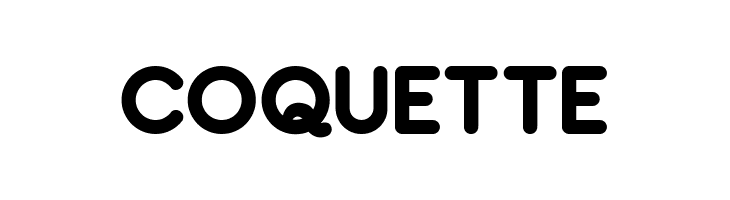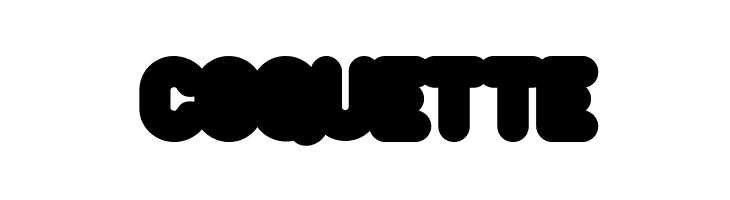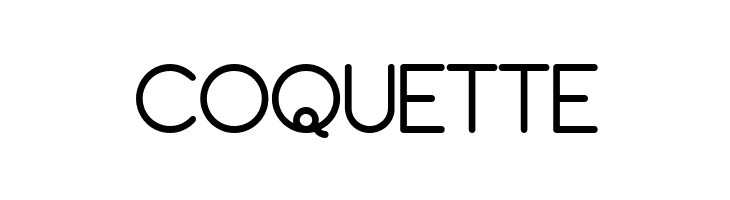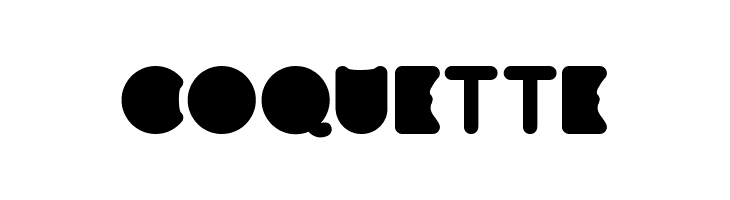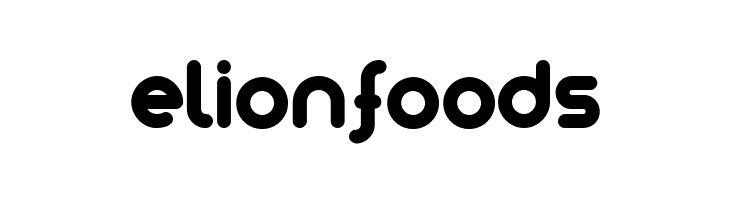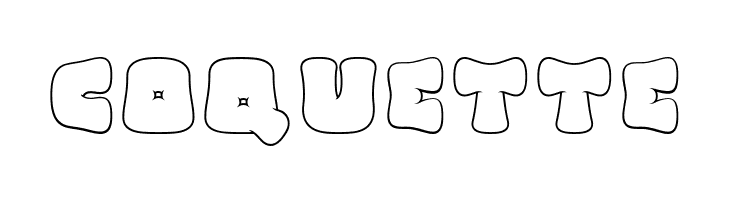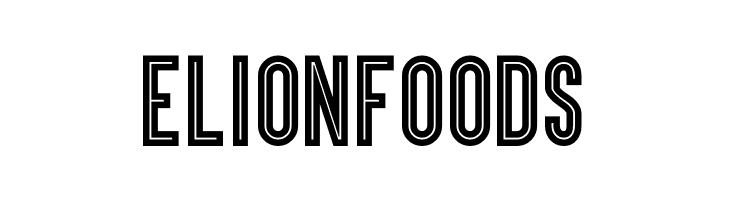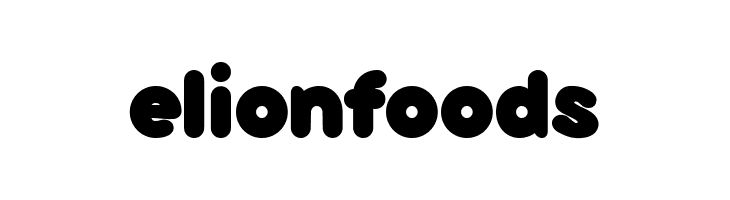
A bold, modern font with geometric outlines and clean lines.
A bold, modern font with geometric lines and strong presence.
A playful, rounded font with smooth curves and a friendly appearance.
A playful, rounded font with smooth curves and uniform strokes.
A bold, playful font with rounded edges and a geometric structure.
A modern, rounded font with geometric structure and even spacing.
A playful, rounded font with bold, smooth curves and a modern aesthetic.
A bold, rounded font with a playful and chunky style.